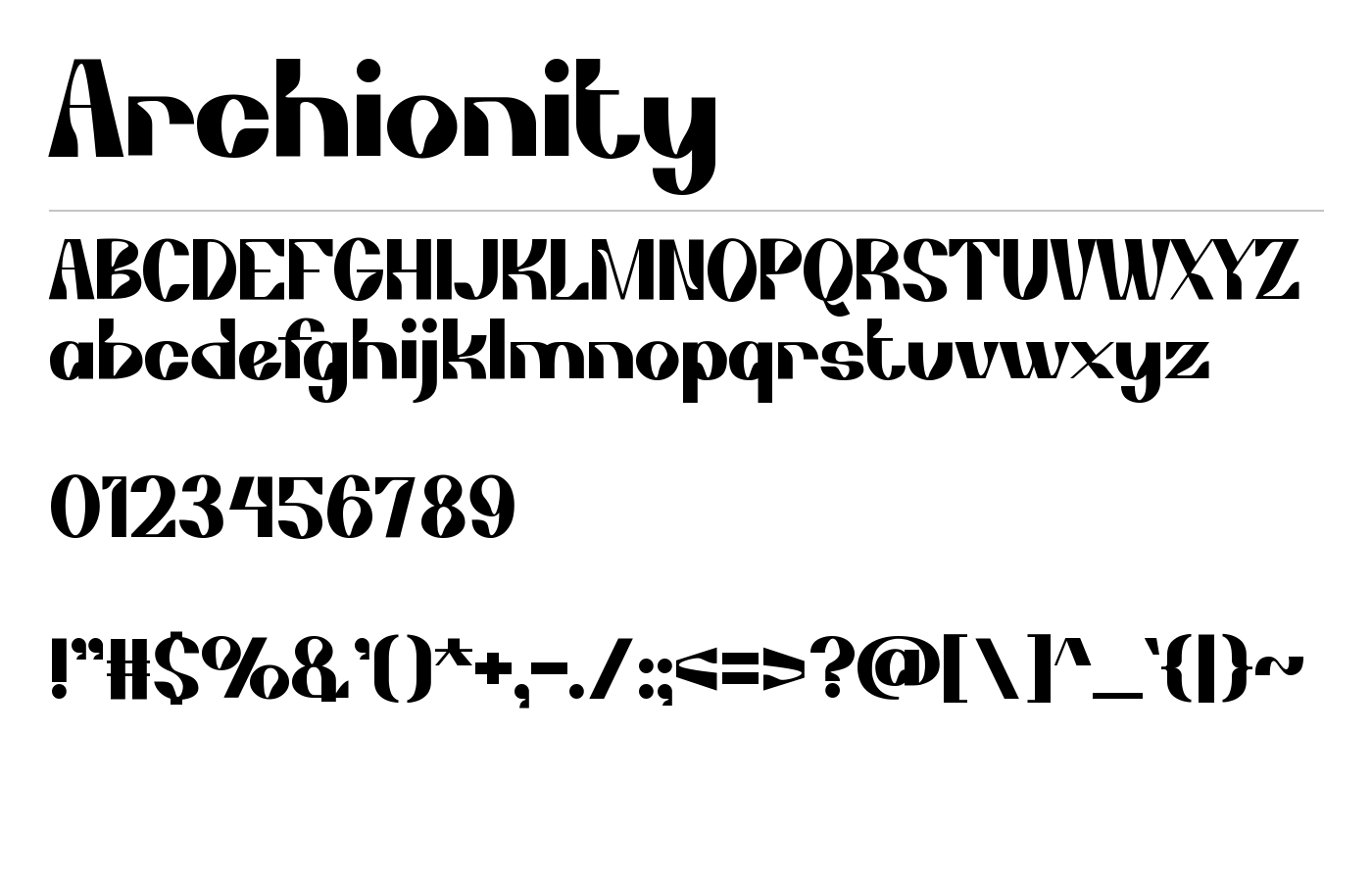
Archionity is a bold, modern serif font with a striking geometric style and high contrast between thick and thin strokes. Its unique shapes and sharp serifs give it an artistic, contemporary feel, making it ideal for attention-grabbing headlines, branding, and editorial design projects that seek a distinctive and creative edge. This font works best in contexts where style and impact are key, such as fashion, luxury, and modern art presentations.
Archionity Font
About Archionity Font